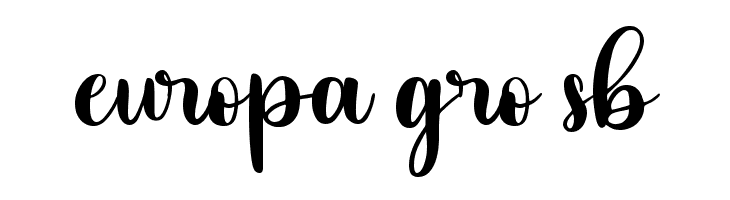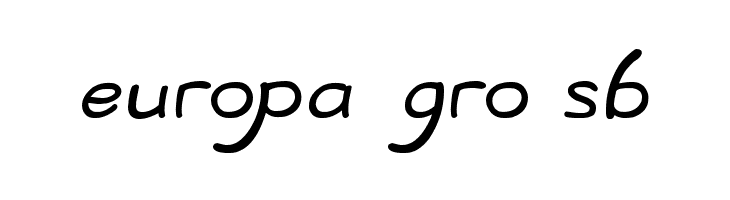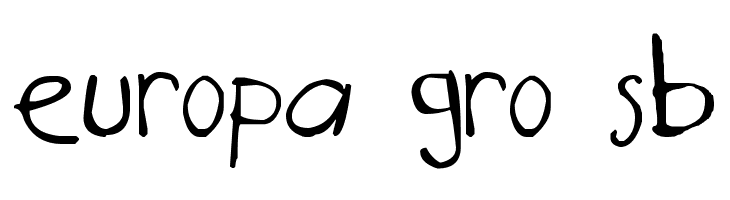
A playful, rounded font with smooth, consistent strokes.
A playful and elegant script font with a handwritten, cursive style.
A playful, informal handwritten font with smooth, rounded edges and a friendly appearance.
A playful, hand-drawn font with a childlike, whimsical style.
A playful, bold font with rounded, outlined characters and a whimsical style.
A bold, geometric font with a modern and playful style.
A playful, handwritten font with bold, rounded strokes and a whimsical charm.
A bold, playful font with a 3D effect and intricate line patterns.